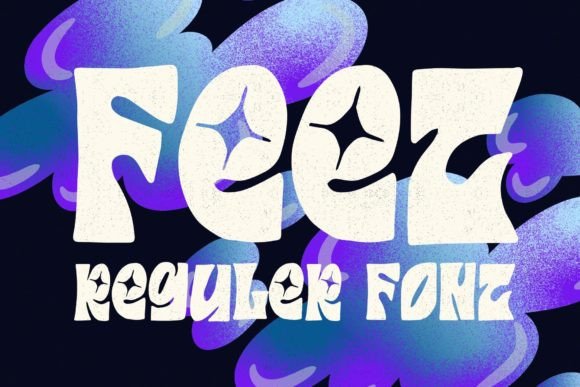
Unleash the Power of Feet Font: A Bold Statement for Your Designs
In the realm of typography, where words come alive, Feet Font stands tall as a bold and captivating sans-serif font, ready to elevate your designs to new heights. Created by the talented maghrib, this font family exudes an aura of authority and strength, making it the perfect choice for executive letters and any project seeking to make a lasting impact.
With its thick, powerful strokes and striking letterforms, Feet Font commands attention, demanding to be seen and heard. Its bold presence adds a touch of modernity and sophistication to any project, whether it's a captivating headline, a striking poster, or a memorable logo.
Embrace the boldness of Feet Font and watch as your words take on a new life, exuding confidence and authority. Let your message shine through with this powerful font, capturing the attention of your audience and leaving an unforgettable impression.